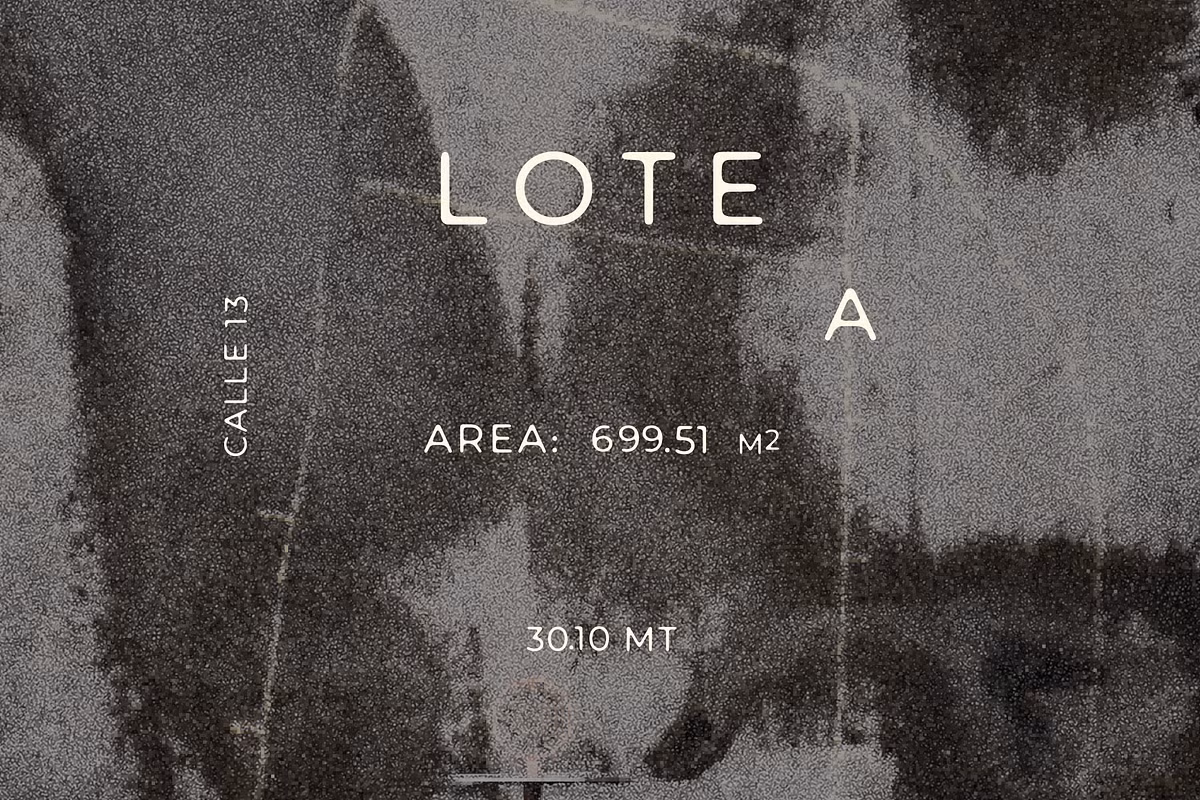
LOTE Font Free Download is a bold and contemporary display typeface designed to make an immediate impact. With its clean lines, strong geometric structure, and stylish character design, this font is perfect for branding, modern logos, editorial layouts, posters, album covers, and fashion-forward digital content.
Striking a balance between minimalism and uniqueness, LOTE Font Free Download adds a creative edge to both text-heavy and headline-focused designs. It's ideal for designers looking to create bold visual identities with a crisp, current aesthetic.